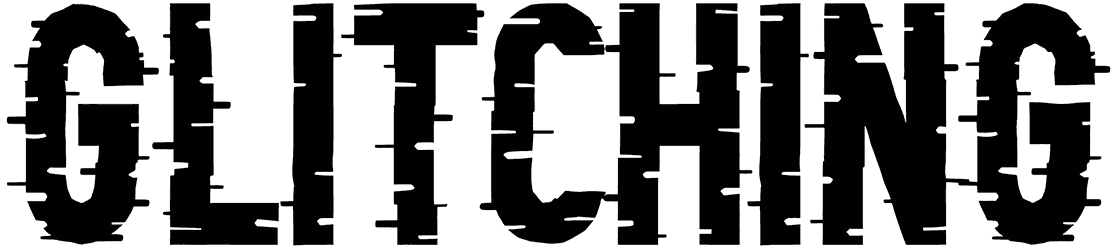
Glitching Font
The whole point of using a capturing letterform for your ultramodern design is to make it different and memorable, and this glitch font can perfectly do it. The bold and distorted visual of the Glitching font is going to make your projects like a unique electronic advertising citylight mesmerizing. Even without lowercase letters, numbers, and punctuation marks, this hacker font would be amazing for your creative project.